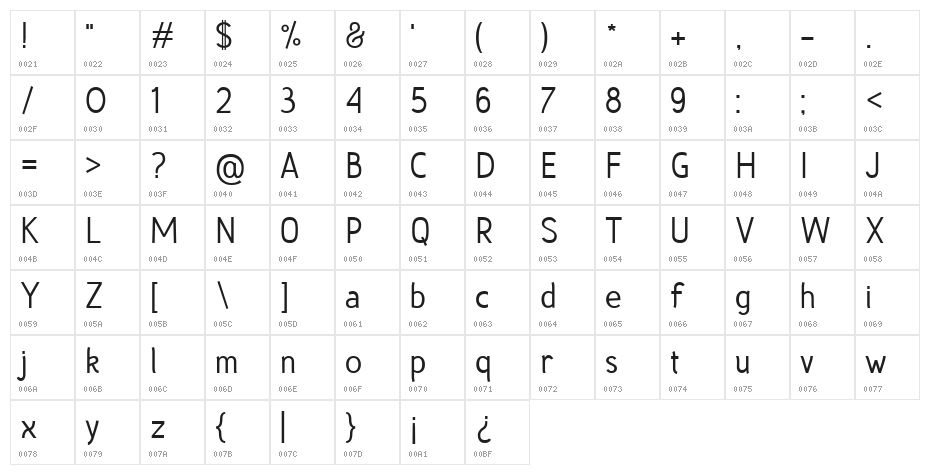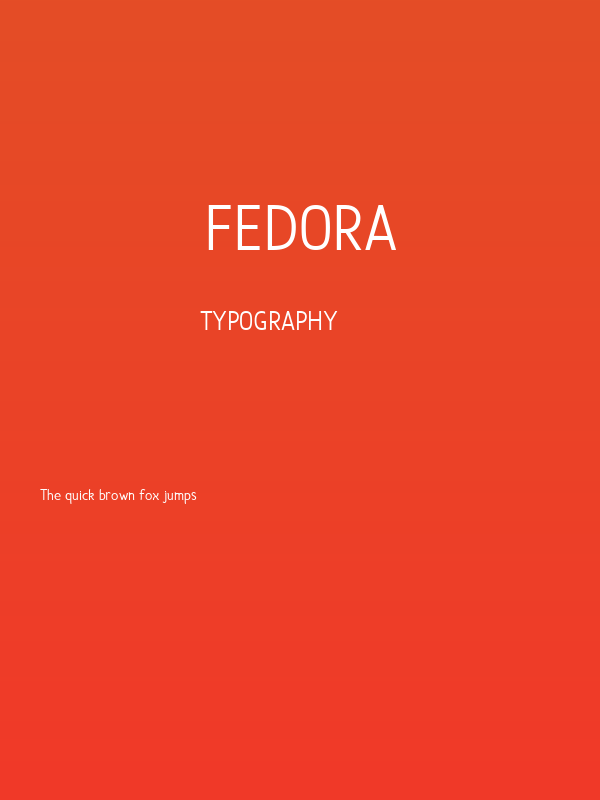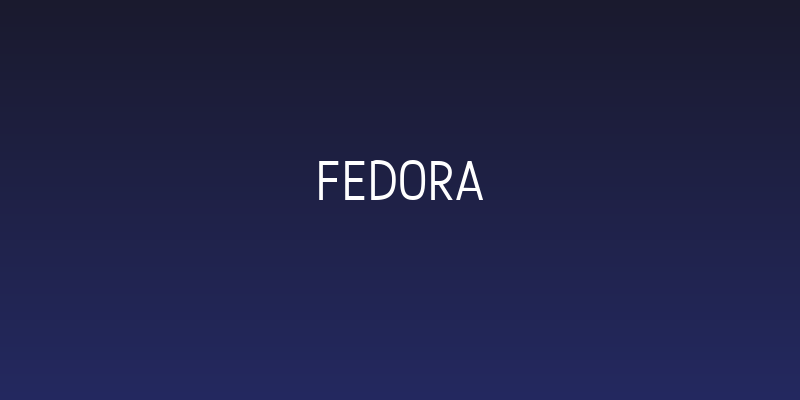
Fedora Font
| Projetos propostos | Ideal for corporate branding, web design, user interfaces, and print media where clarity and professionalism are essential. |